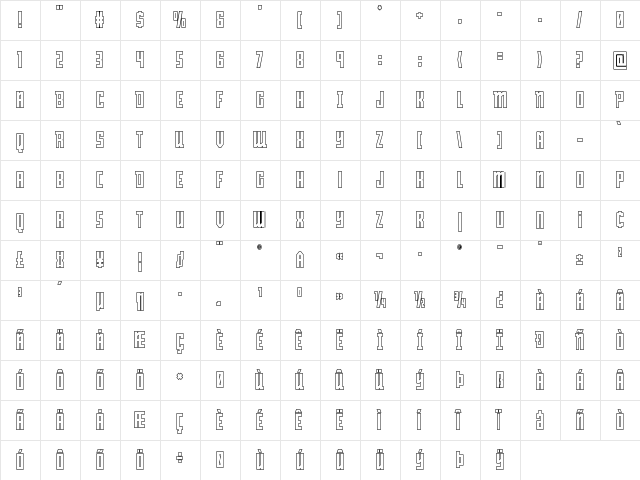
Young Patriot Outline Outline
Design Context for Young Patriot Outline Typeface
Young Patriot Outline is built around its visual character rather than neutral utility — its distinctive forms are designed to make an impression at display sizes.
Font Pairing: Pair with a clean neutral sans-serif for body copy to let Young Patriot Outline's character lead without overwhelming the composition.
Pro Tip: Use Young Patriot Outline exclusively at display sizes — it was designed to be seen, not read at length. Let a neutral companion handle body copy.